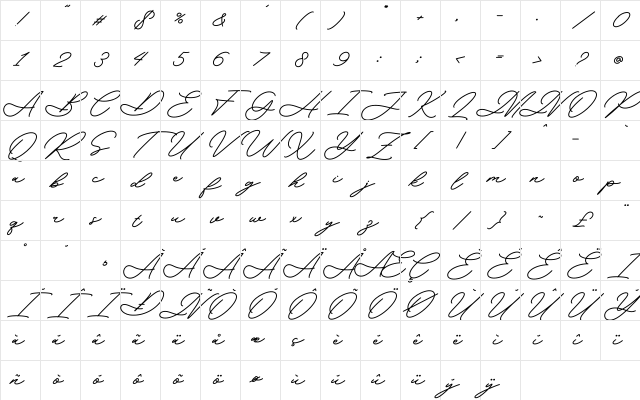
Yearlong_DEMO Regular Free Font
Yearlong_DEMO Regular
Design Context for Yearlong_DEMO
Yearlong_DEMO is a composed and adaptable typeface that performs quietly and consistently across a wide range of design contexts.